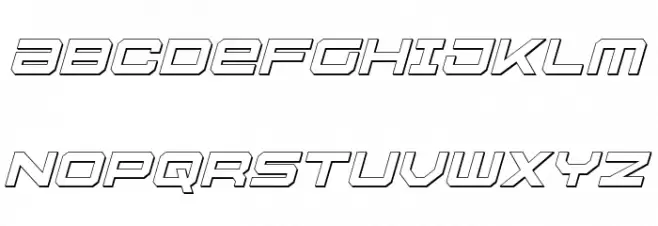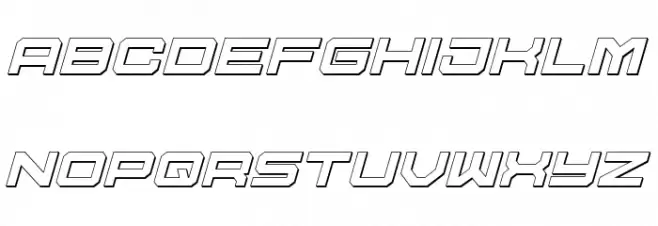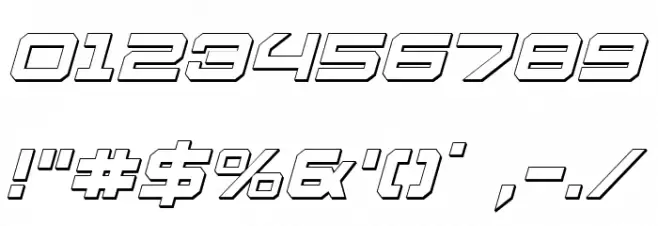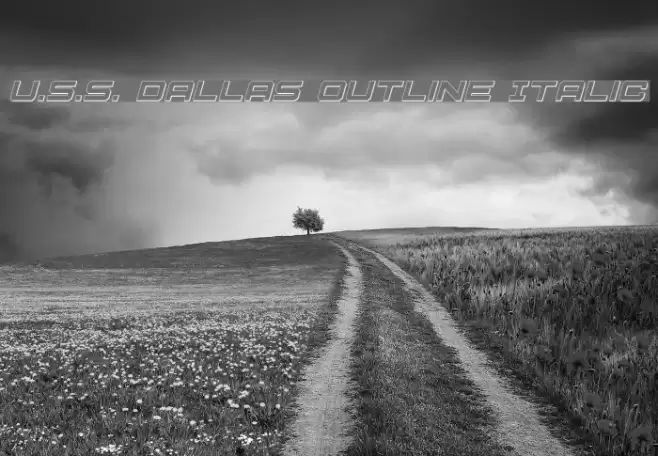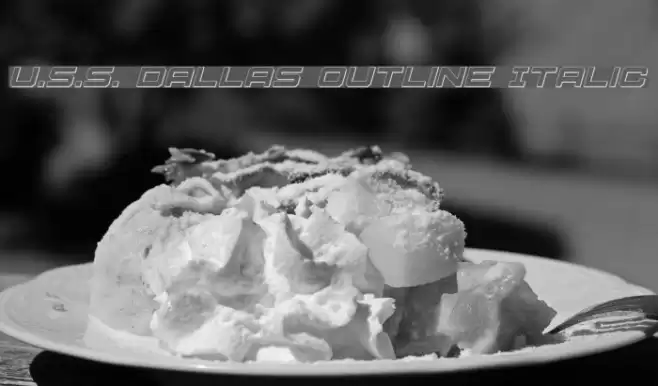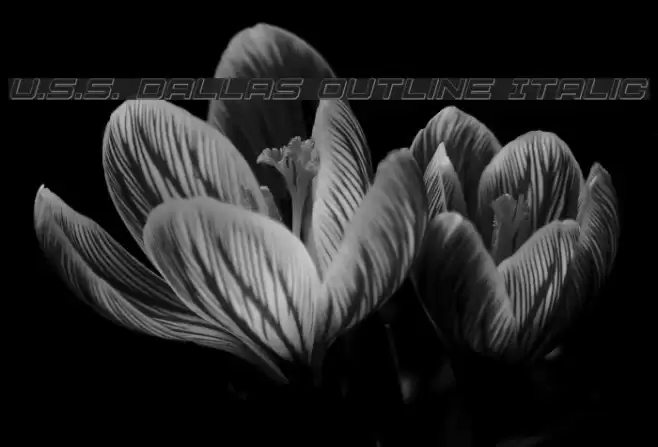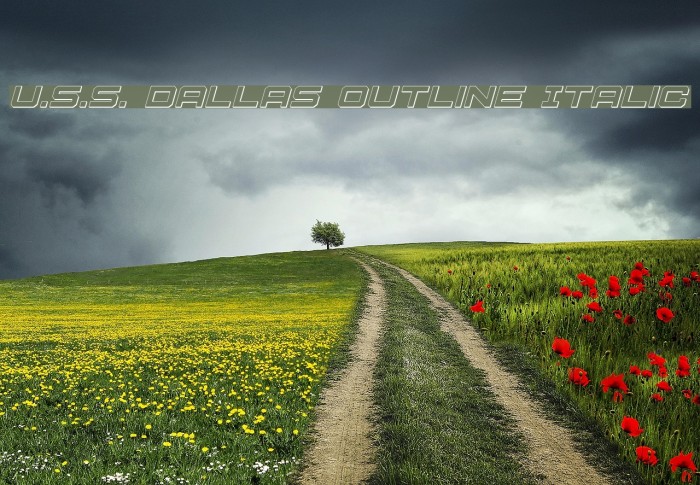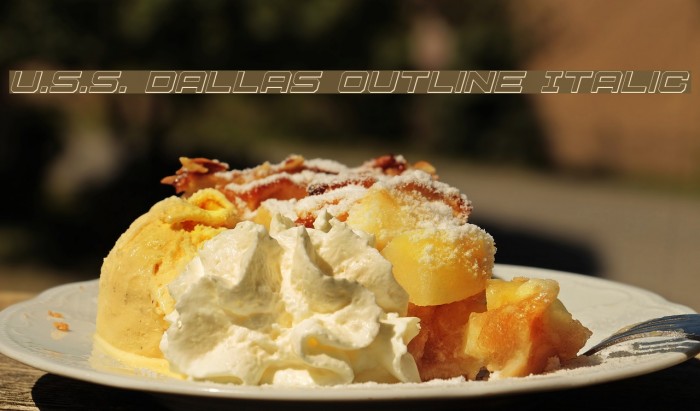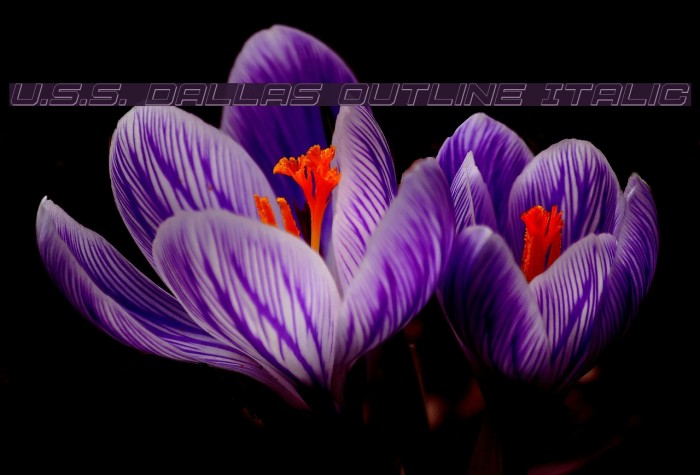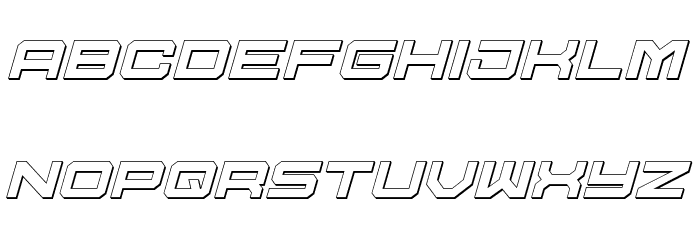
U.S.S. Dallas Outline Italic
This font features a bold, outlined style with an italic slant, giving it a dynamic and futuristic appearance. The characters are geometric and angular, with a consistent stroke width that forms a clear and distinct outline. The uppercase and lowercase letters maintain a uniform design, enhancing readability while adding a modern edge. The numerals and special characters follow the same stylistic approach, ensuring cohesion across all glyphs. This font's outlined nature makes it ideal for creating standout text that demands attention.
A bold, outlined, italic font with a futuristic and geometric style.
- Proposed Projects: Ideal for sci-fi themed designs, video game titles, technology branding, and modern posters.
- Use Case: Headlines, Logos, Posters